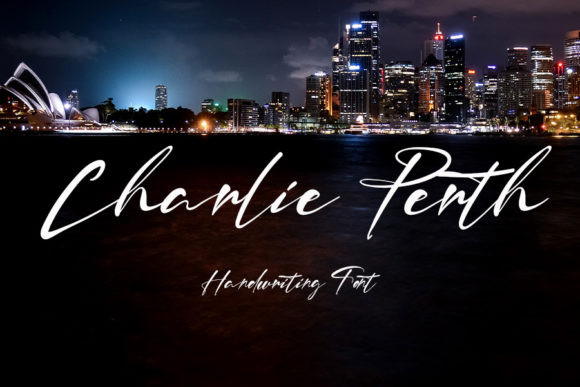
Charlie Perth Font
Charlie Perth is a chic, eye-catching and flowing handwritten font. Whatever the topic, this font will be a wonderful asset to your font library, as it has the potential to enhance any creation.